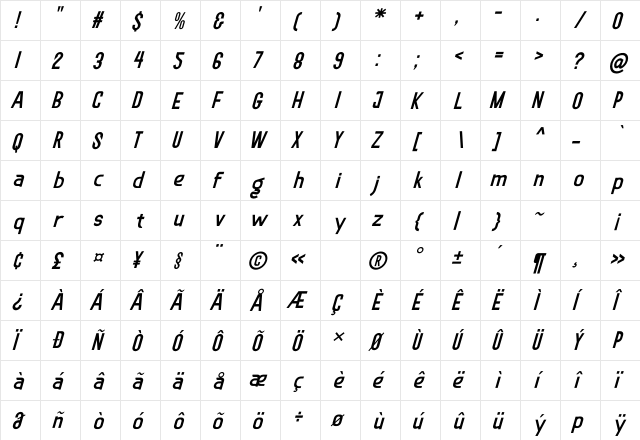
Soegja Italic
Design Context for Soegja Typeface
Soegja offers clean, dependable letterforms without strong stylistic allegiance, making it a practical choice for designers who need flexibility. Its italic angle brings a sense of urgency and motion to the letterforms.
Pro Tip: Try Soegja for annotation and caption copy alongside an upright companion — the contrast in angle creates a dynamic but ordered typographic system.